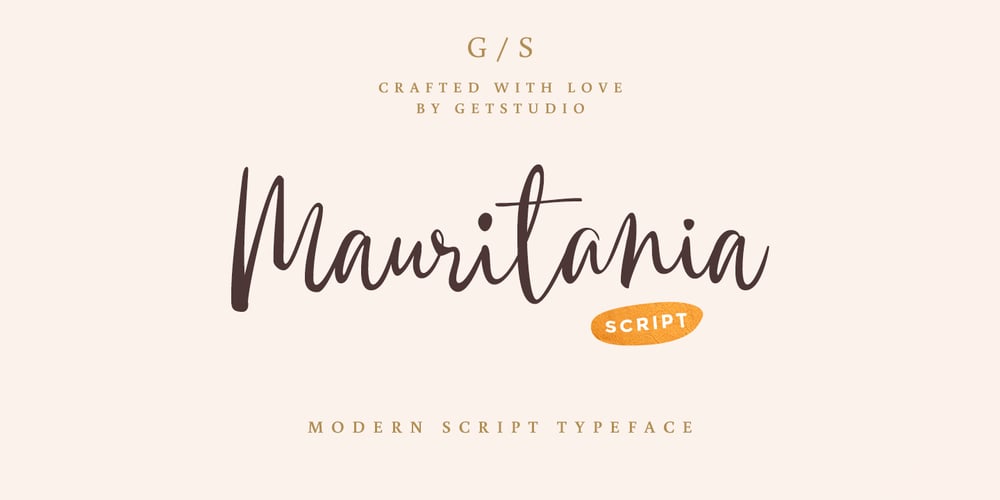
Mauritania Script Font Family was designed by Hermansyah and published by Get Studio. Mauritania Script contains 1 styles and family package options. Introducing, Mauritania Script. This hand-made font is well crafted with a dancing baseline that makes this font perfect for delivering an extremely fearless message in your design without losing the natural impression.Mauritania Script is very suitable for various types of design needs such as branding materials, t-shirt, food-packaging, business cards, logos, posters, and more. This font comes with a complete set of lowercase alternates, numerals, a large range of punctuation ligatures, and Special European Characters.